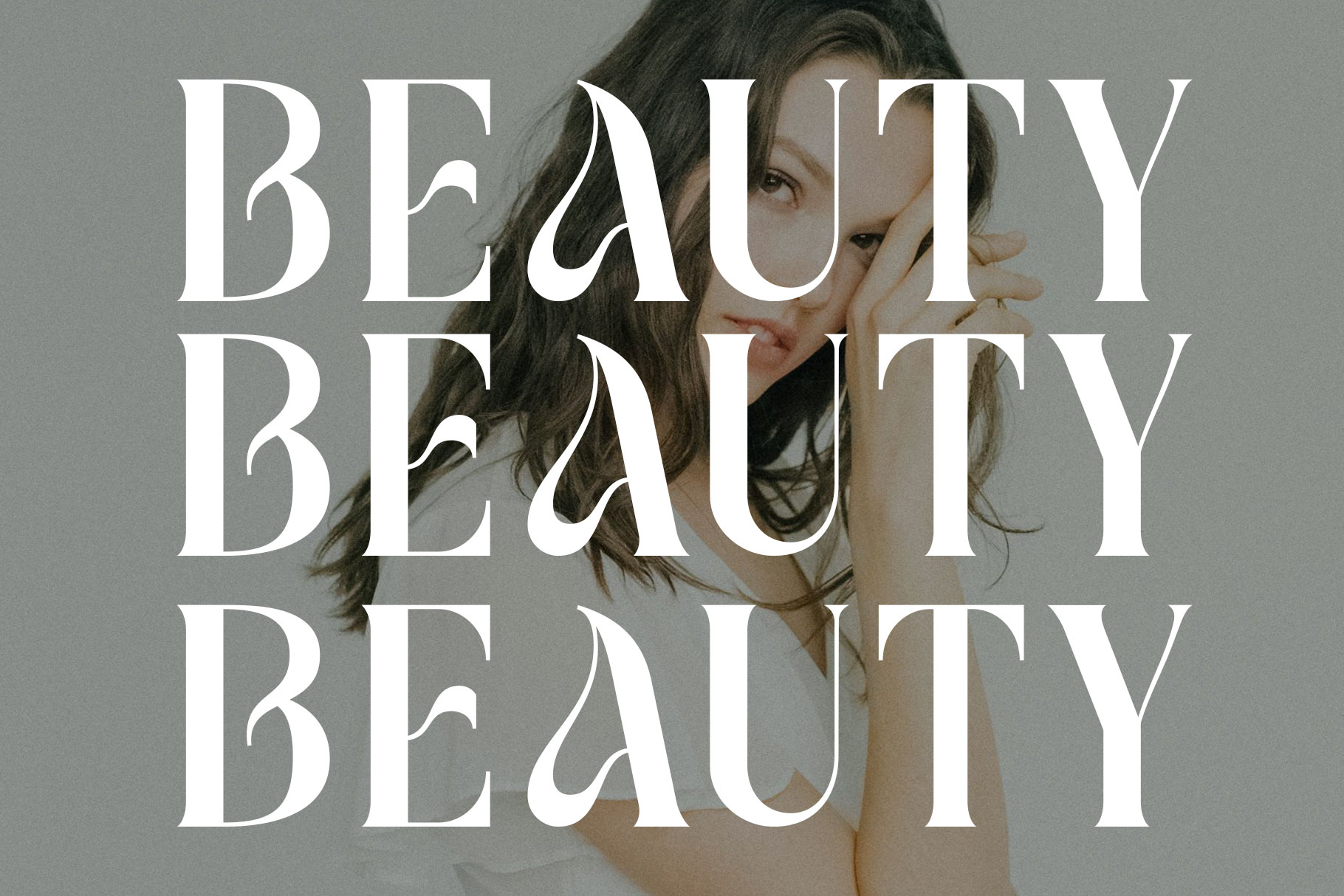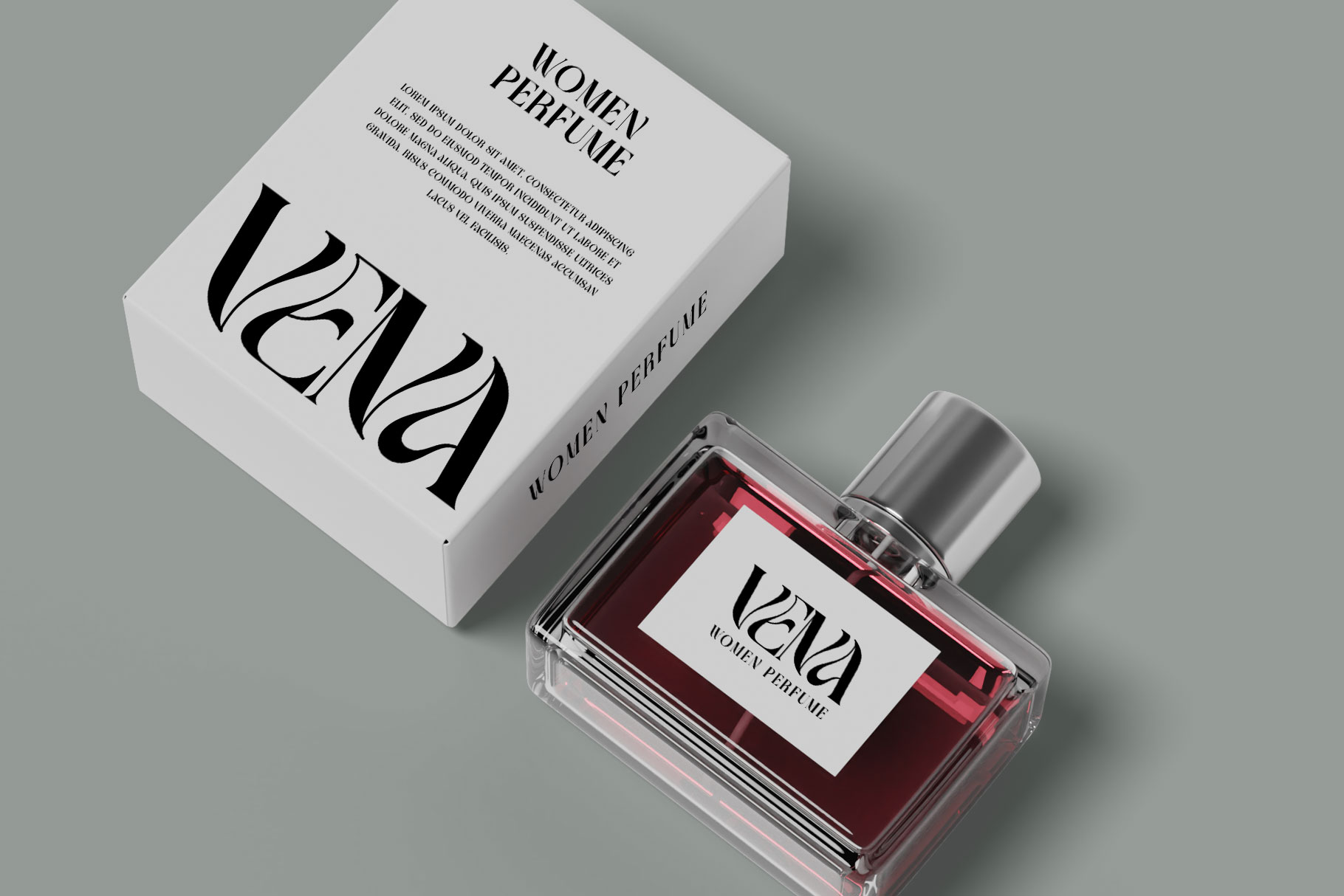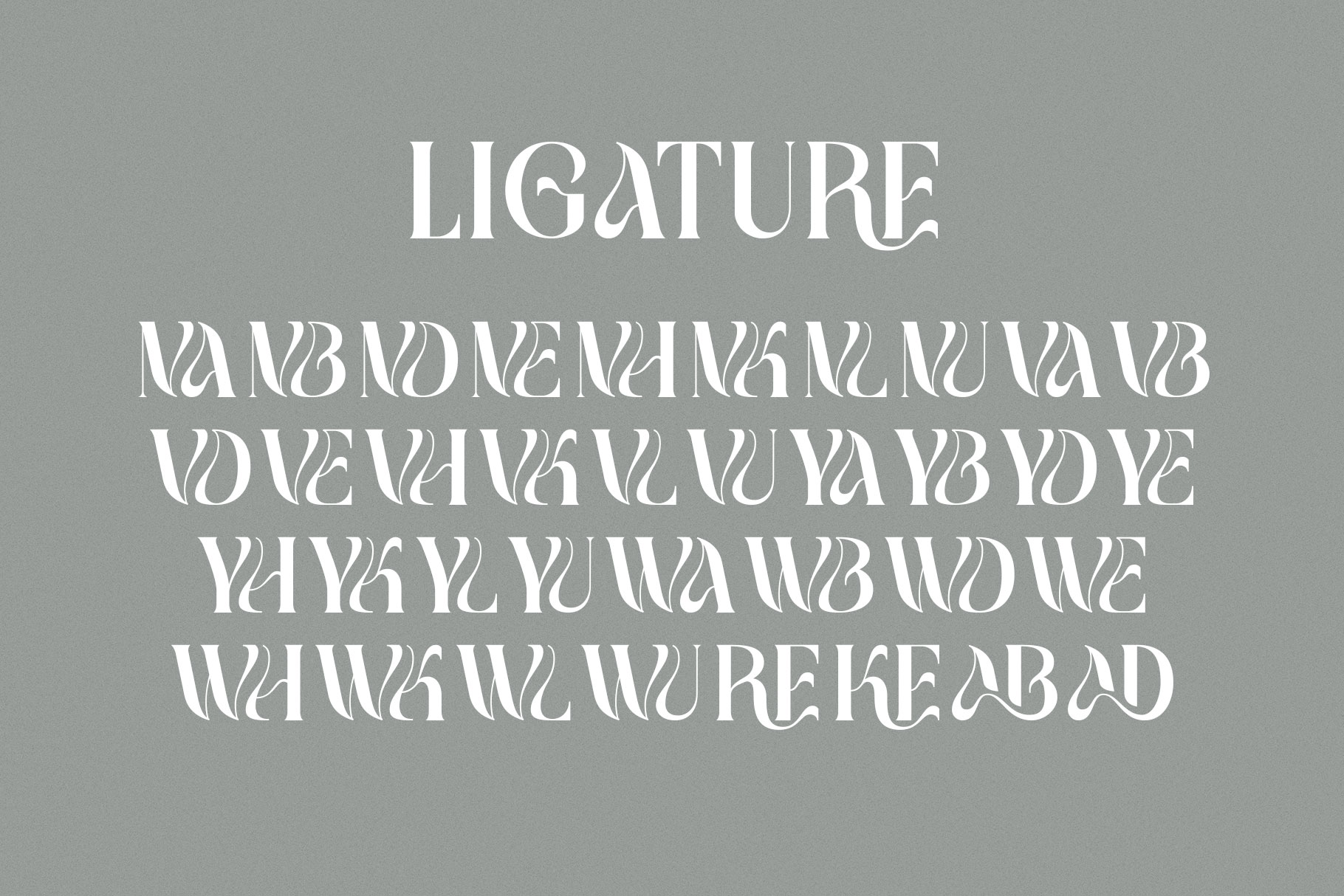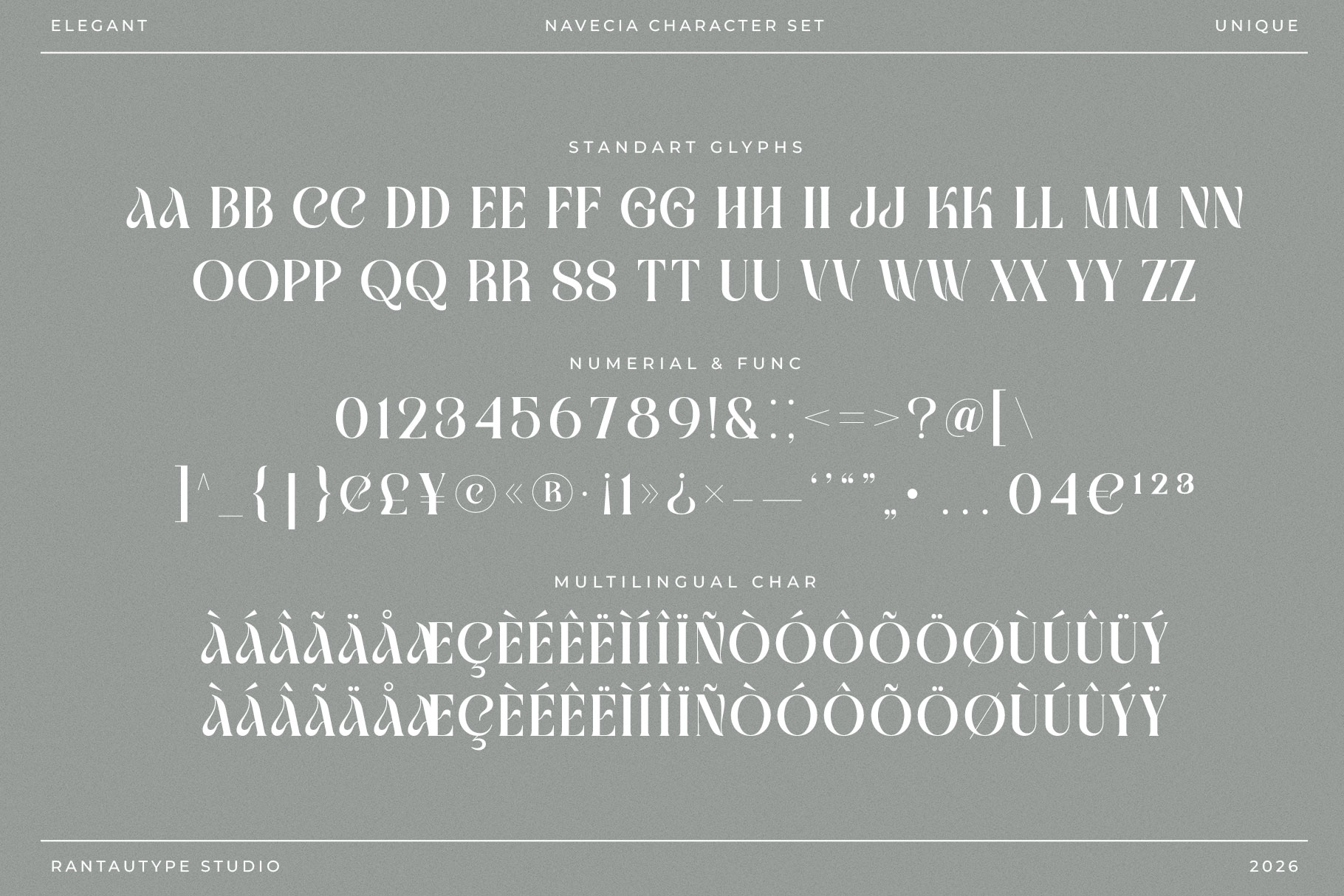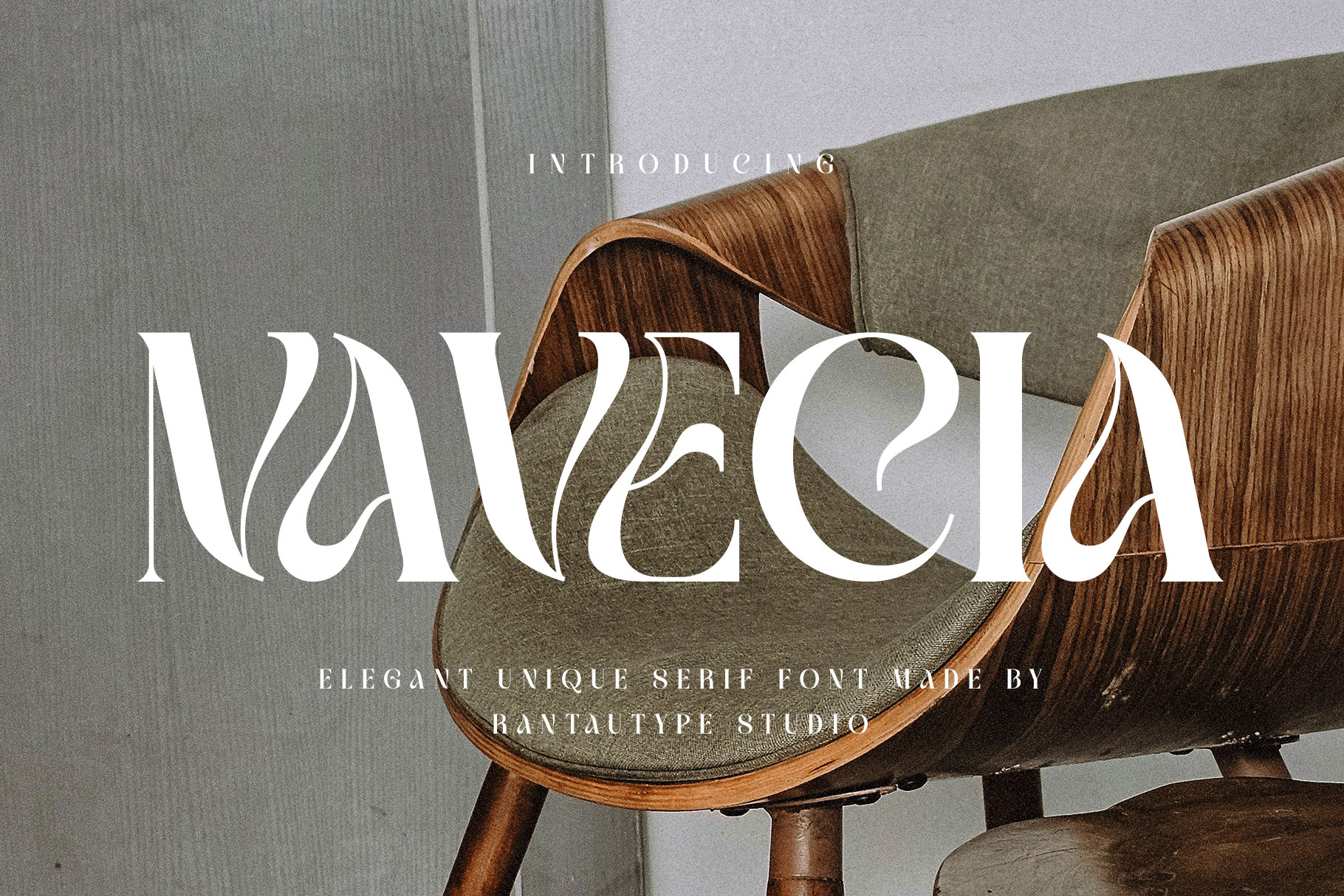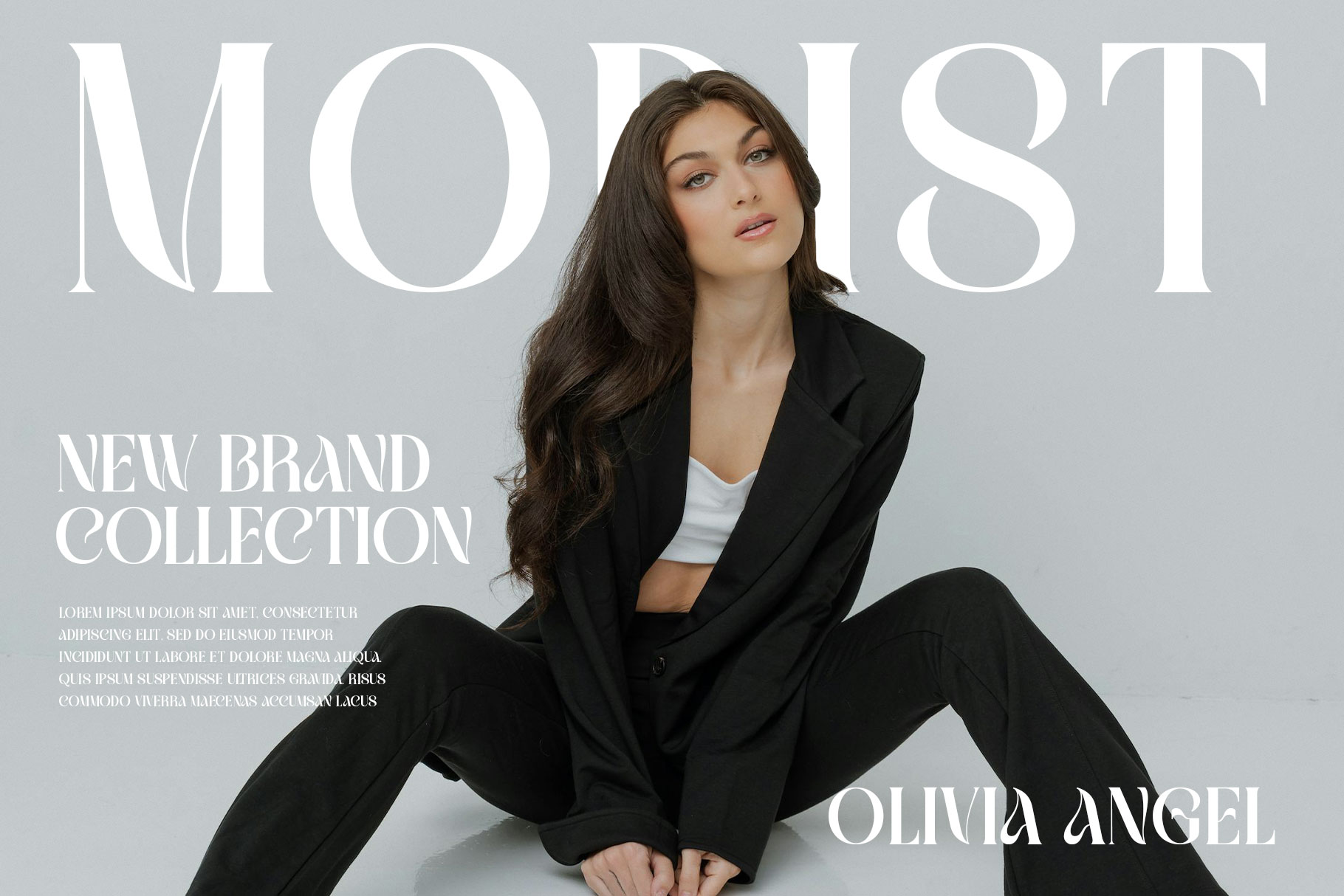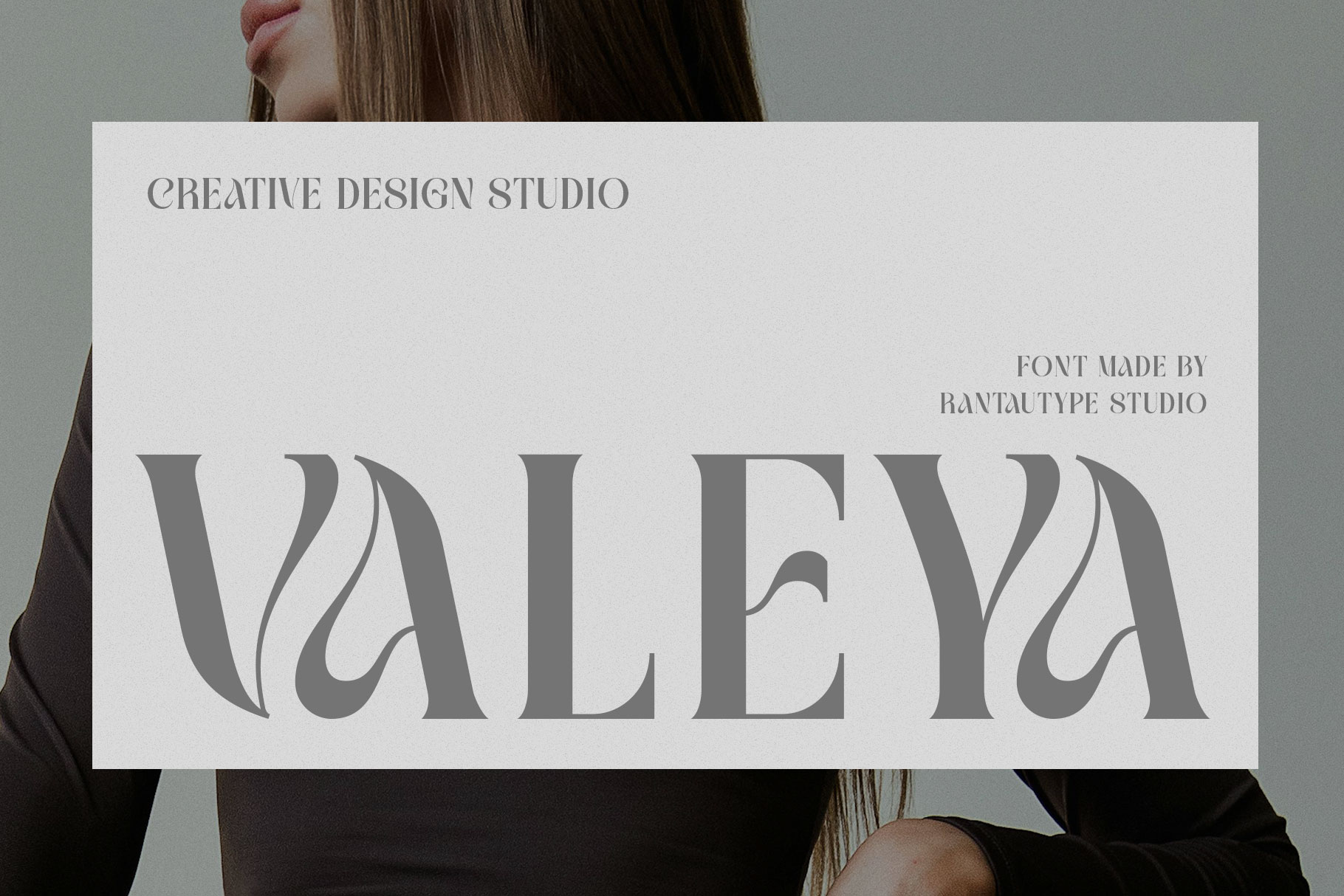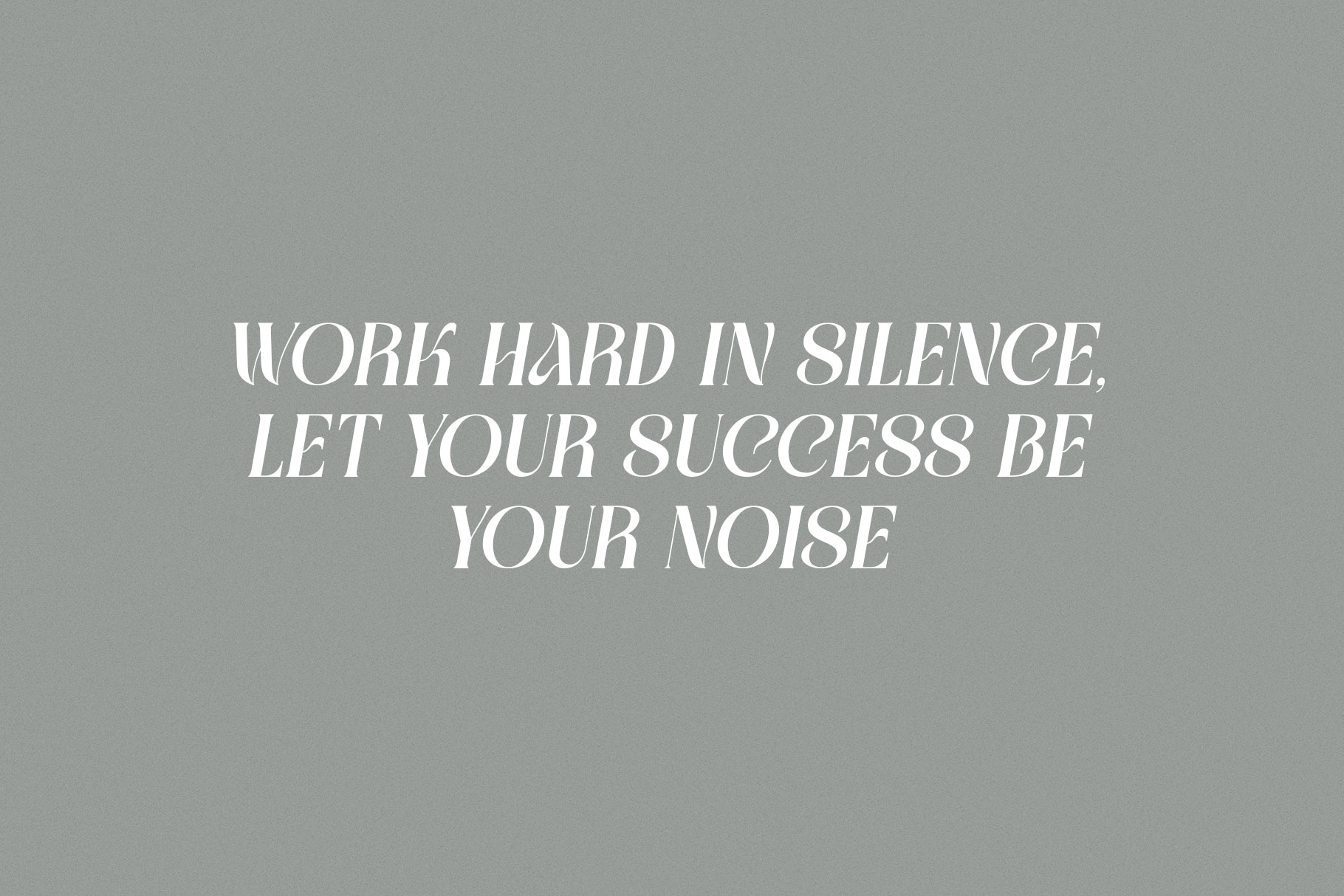
Navecia Elegant Unique Font
Navecia is elegant font made by rantautype studio with unique character. Navecia bring sophistication, clarity, and personality into today’s visual world. Revaltin is a perfectly choice for any creative endeavor, creating, modern, lifestyle design such as logotype, title, cover, branding, invitations, wedding designs, display and magazine, social media posts, advertisements, printed quotes, product packaging, corporate brand, product designs, labels, photography, watermarks, special events and any other project with modern touch.